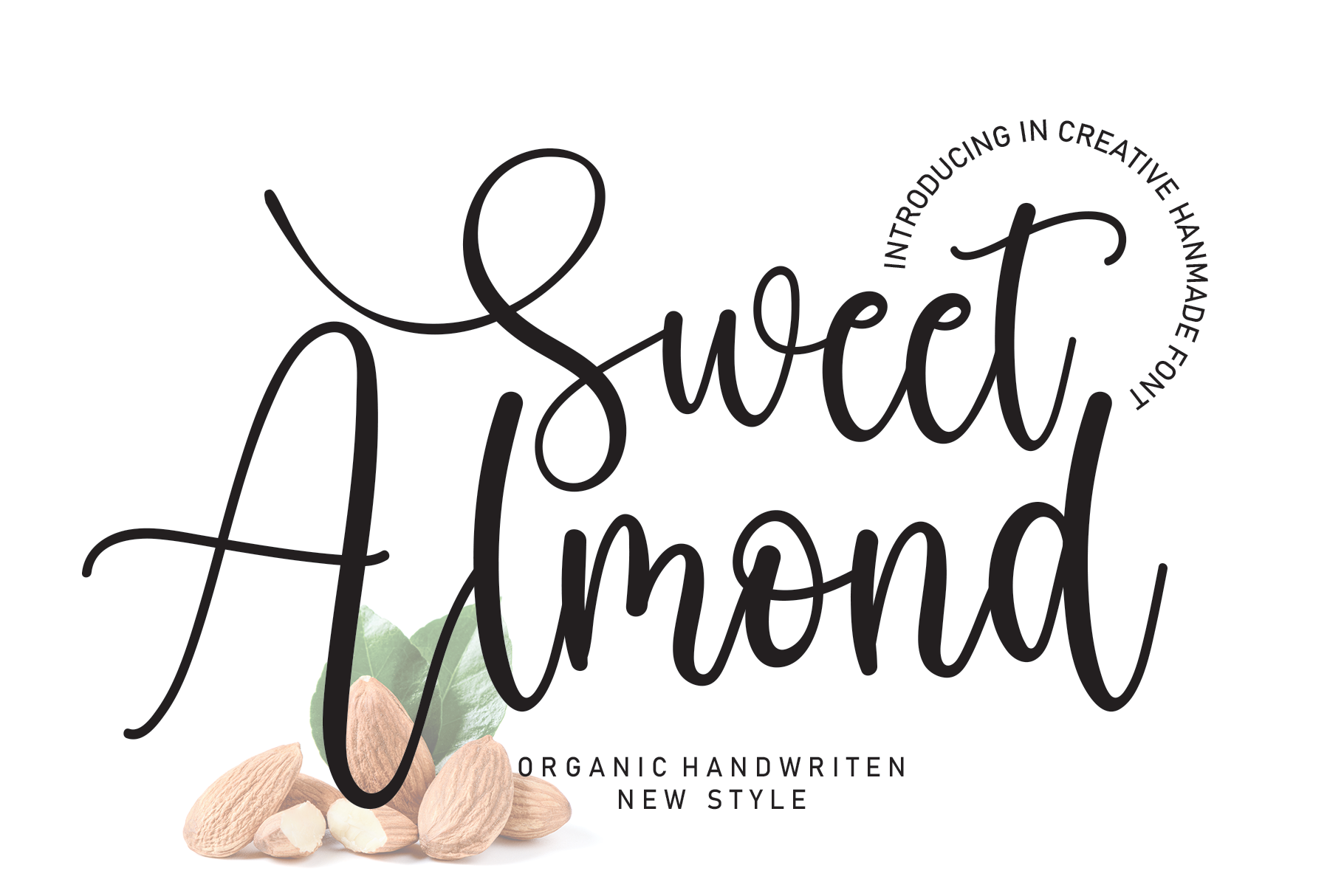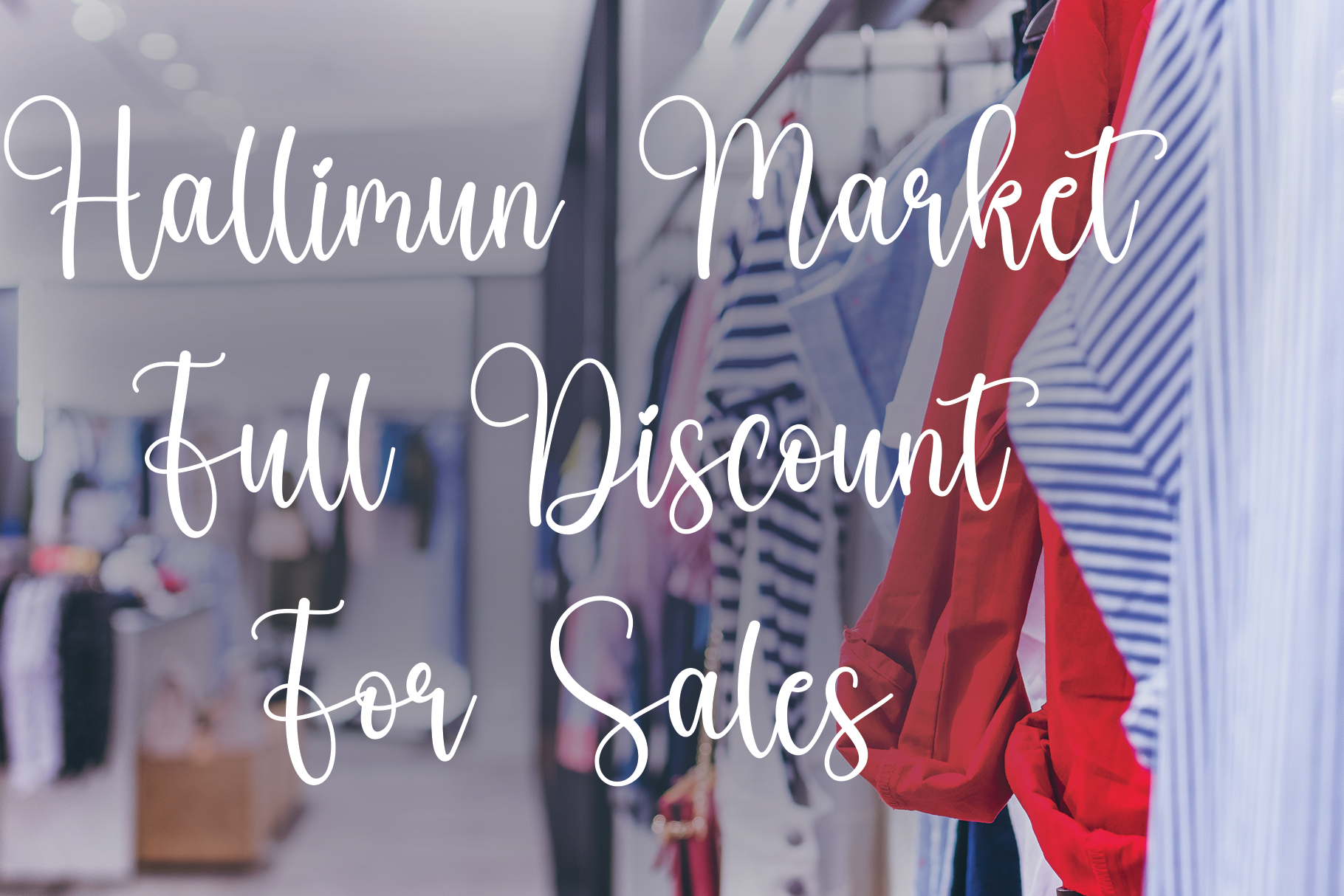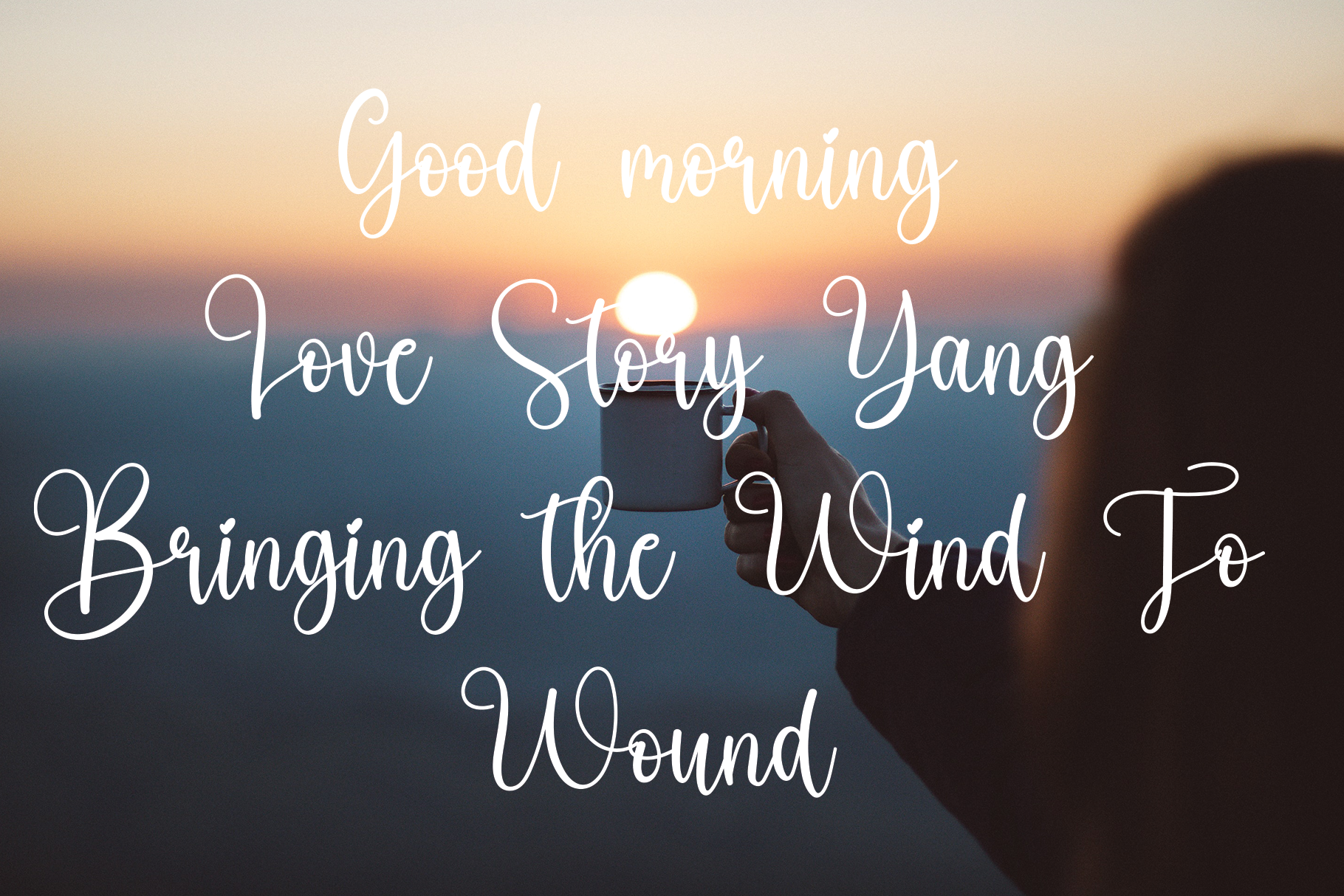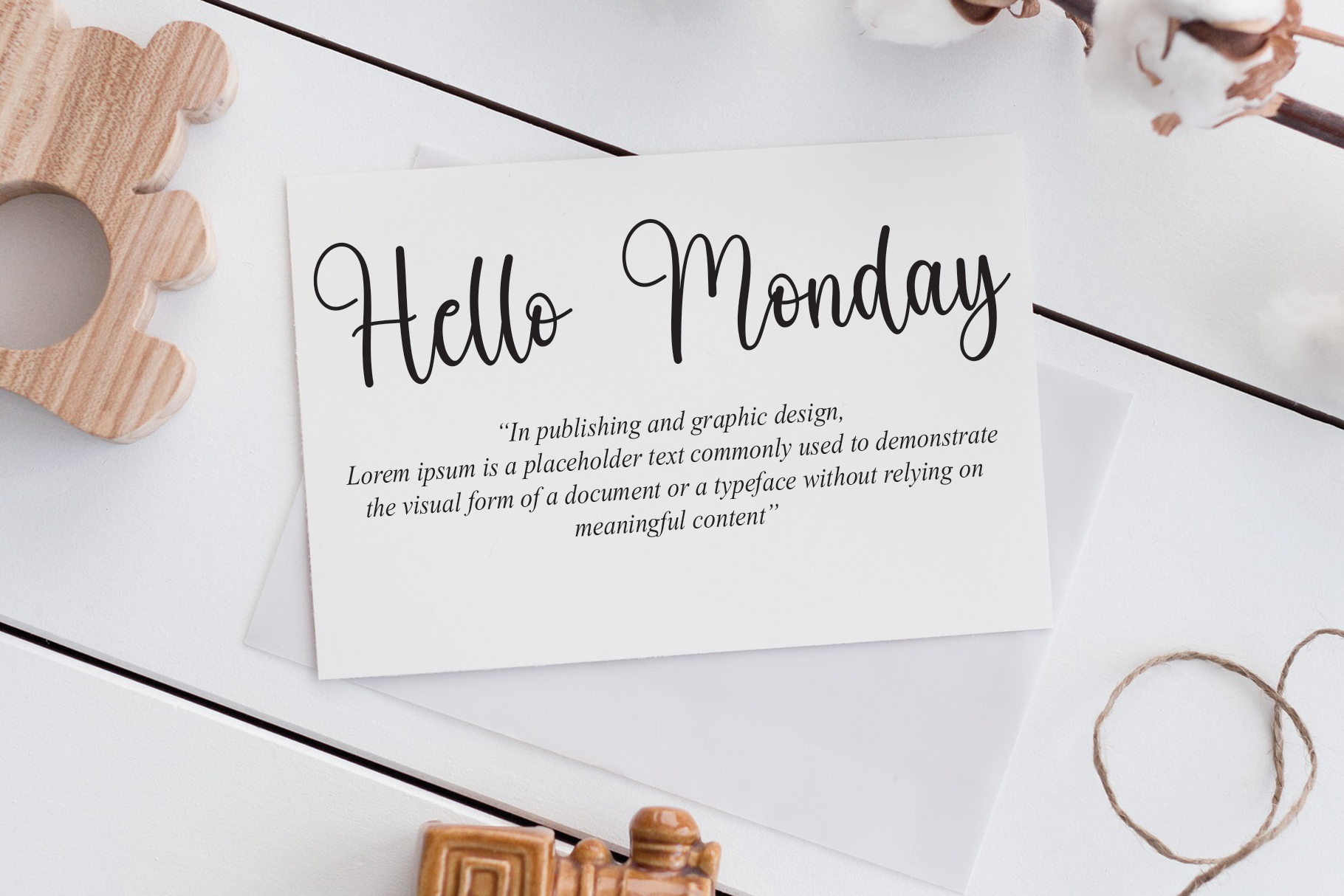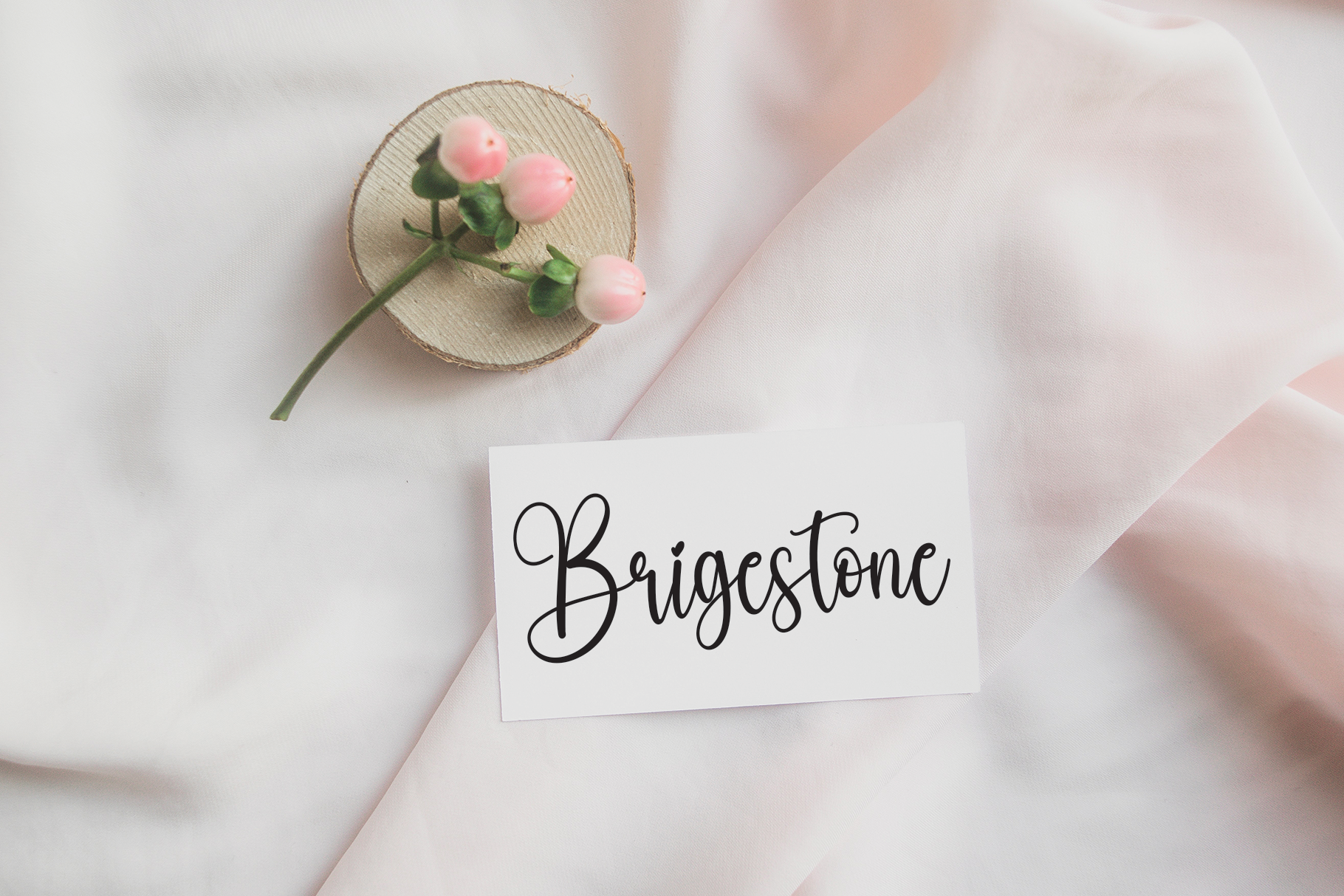
Sweet Almond Font
Sweet Almond Script Font
This is a beautiful and light handwritten font with a unique feel and a stunning impact. It will add a luxury spark to any design project that you wish to create!
the latest style letters are perfect for wall displays, wedding invitations, social media post logos, advertisements, product packaging, product designs, labels, photography, watermarks, invitations, stationery, and any project that requires taste handwriting.